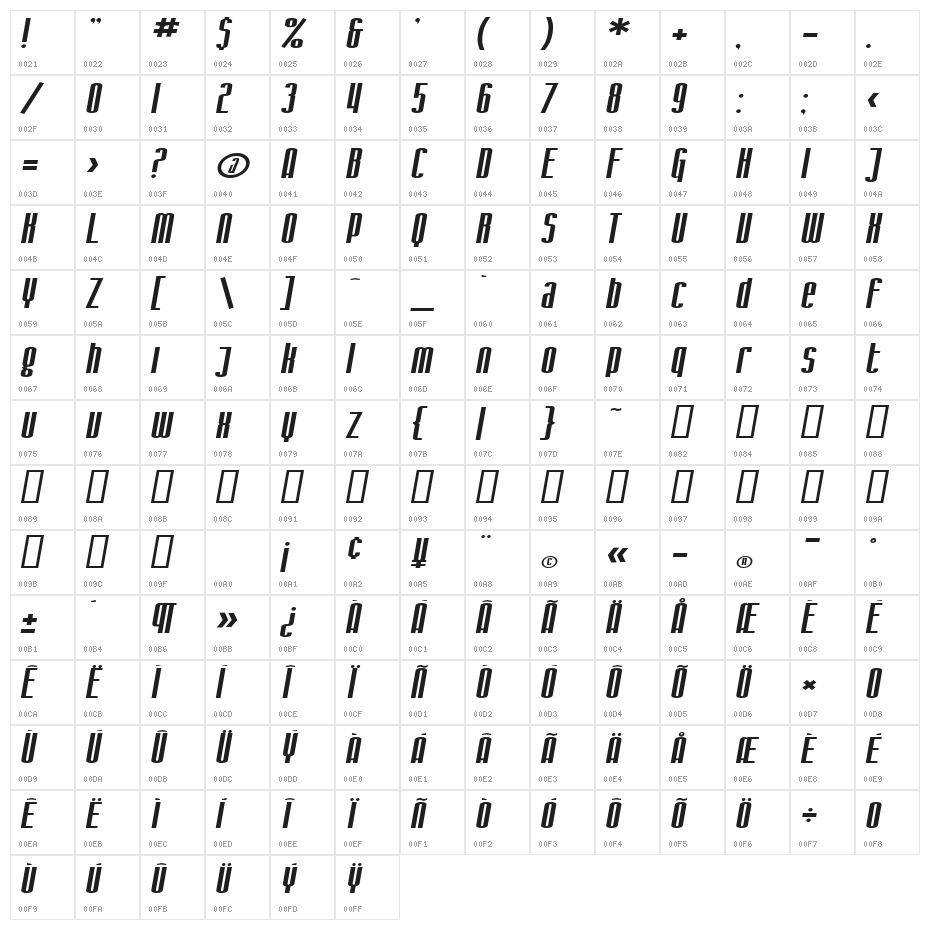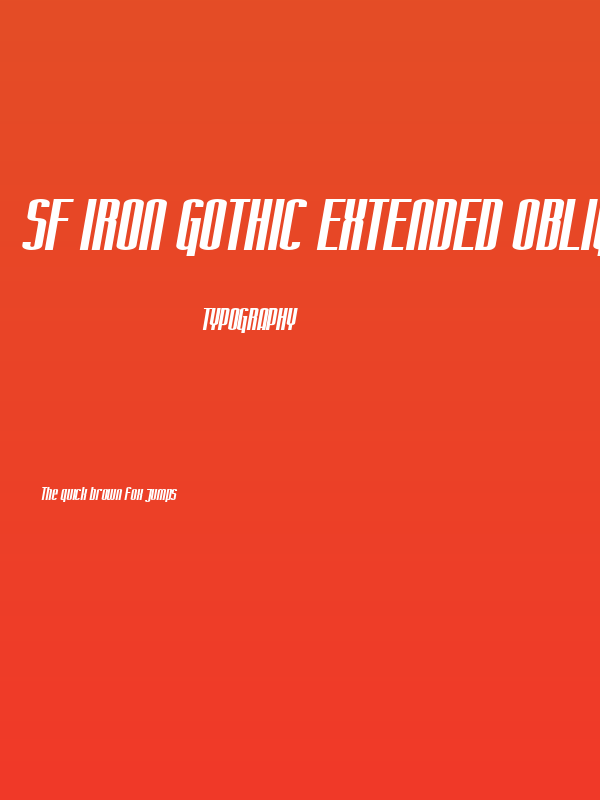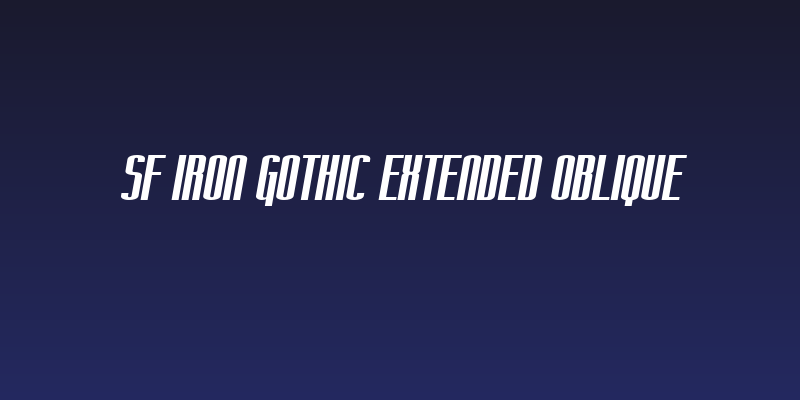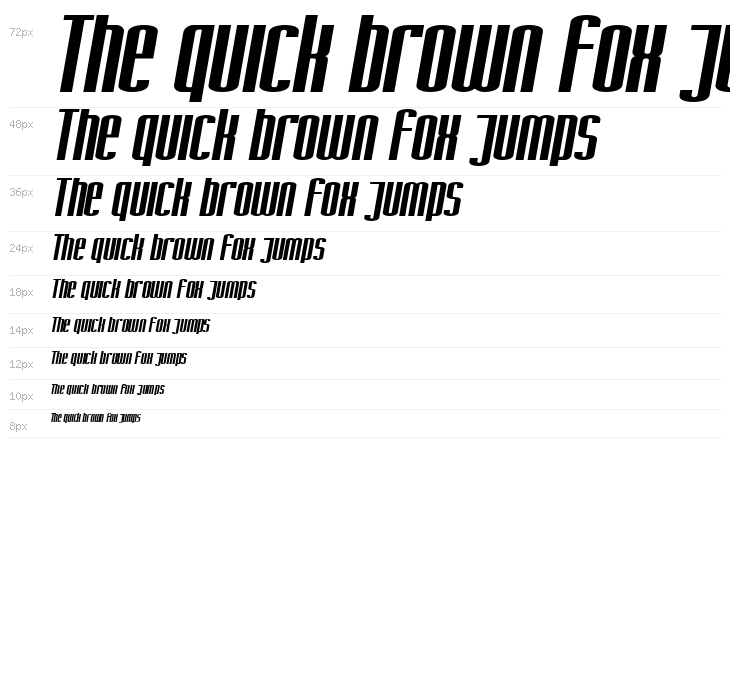
SF Iron Gothic Extended Oblique Font
SF Iron Gothic Extended Oblique Description
This font features a bold and extended style with a distinct oblique slant, giving it a dynamic and modern appearance. The characters are tall and narrow, with sharp angles and clean lines that convey a sense of strength and movement. The uppercase and lowercase letters maintain a consistent style, while the numerals and special characters complement the overall design. The font's extended width and oblique orientation make it particularly eye-catching, suitable for projects that require a strong visual impact.
| Proposed Projects | Ideal for sports branding, dynamic posters, modern advertising, and impactful headlines. |